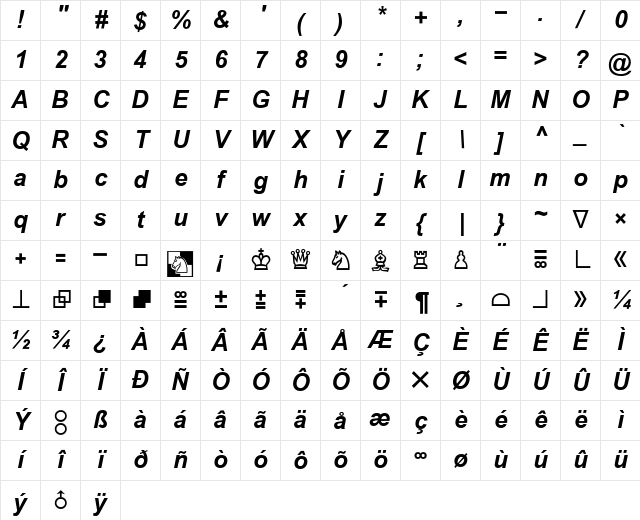
FigurineCB AriesSP Bold Italic
Design Context for FigurineCB AriesSP
FigurineCB AriesSP is a composed and adaptable typeface that performs quietly and consistently across a wide range of design contexts. The slanted form adds forward momentum and visual energy. Its bold stroke weight gives it real presence on the page.